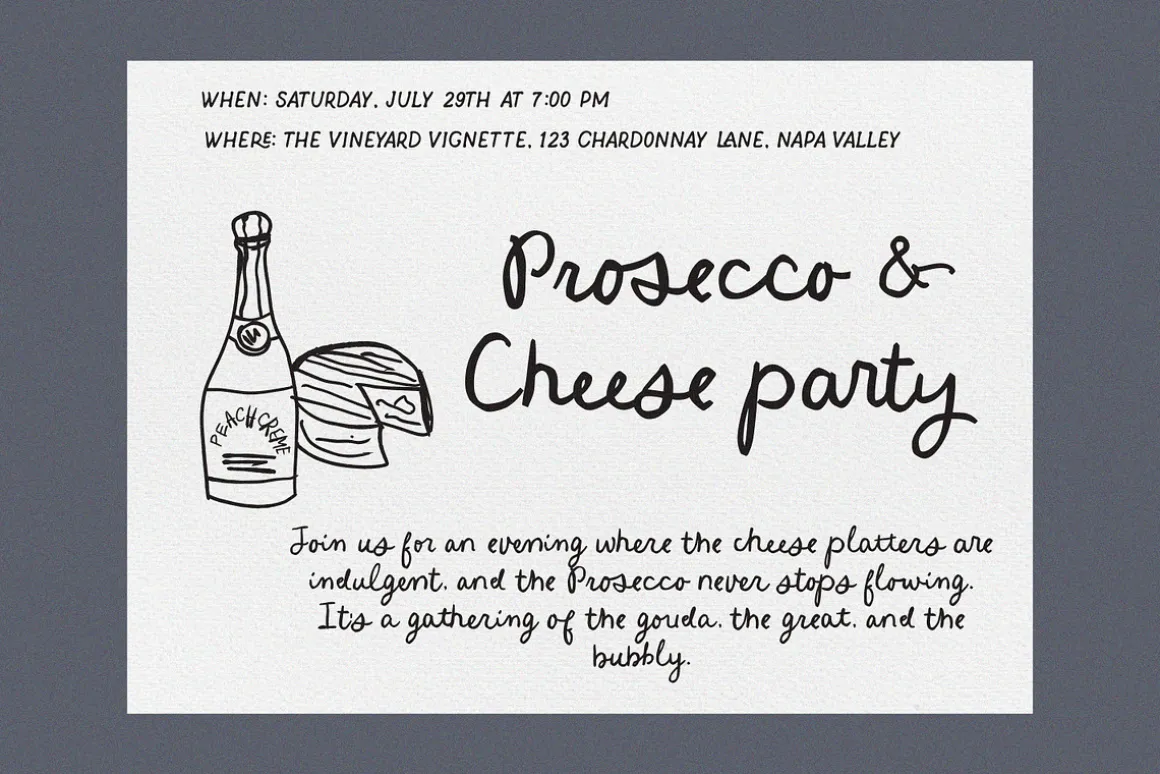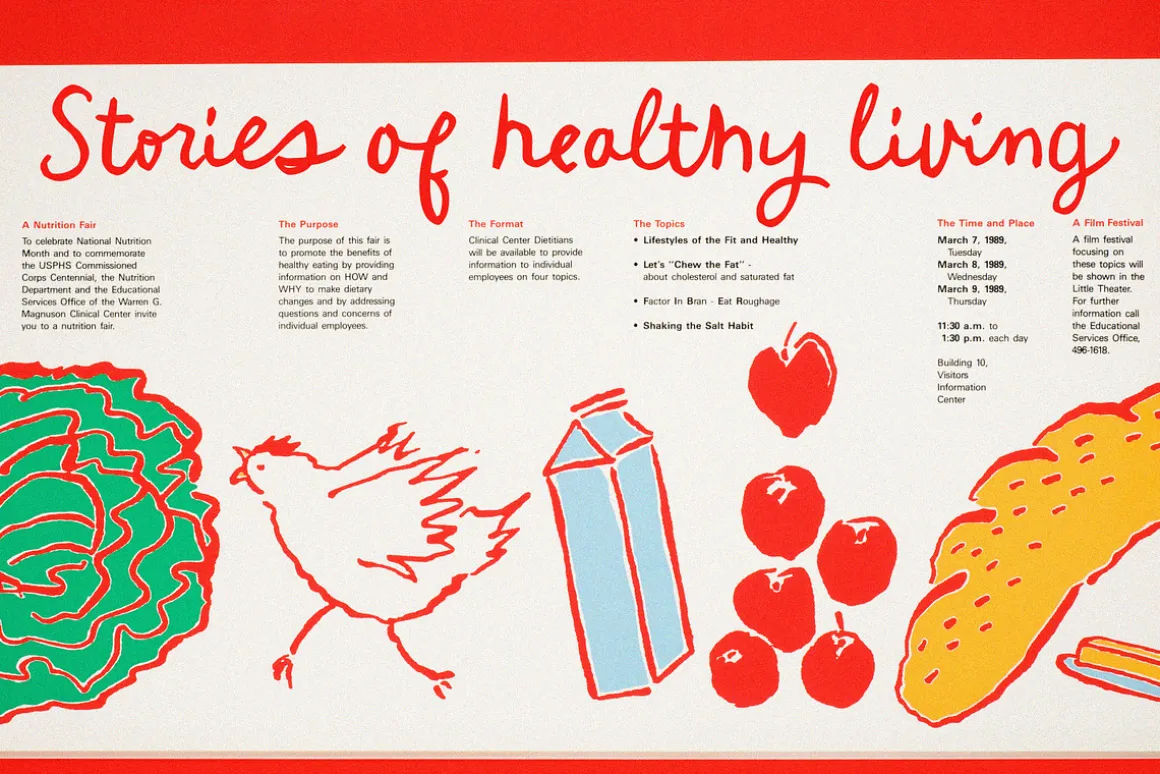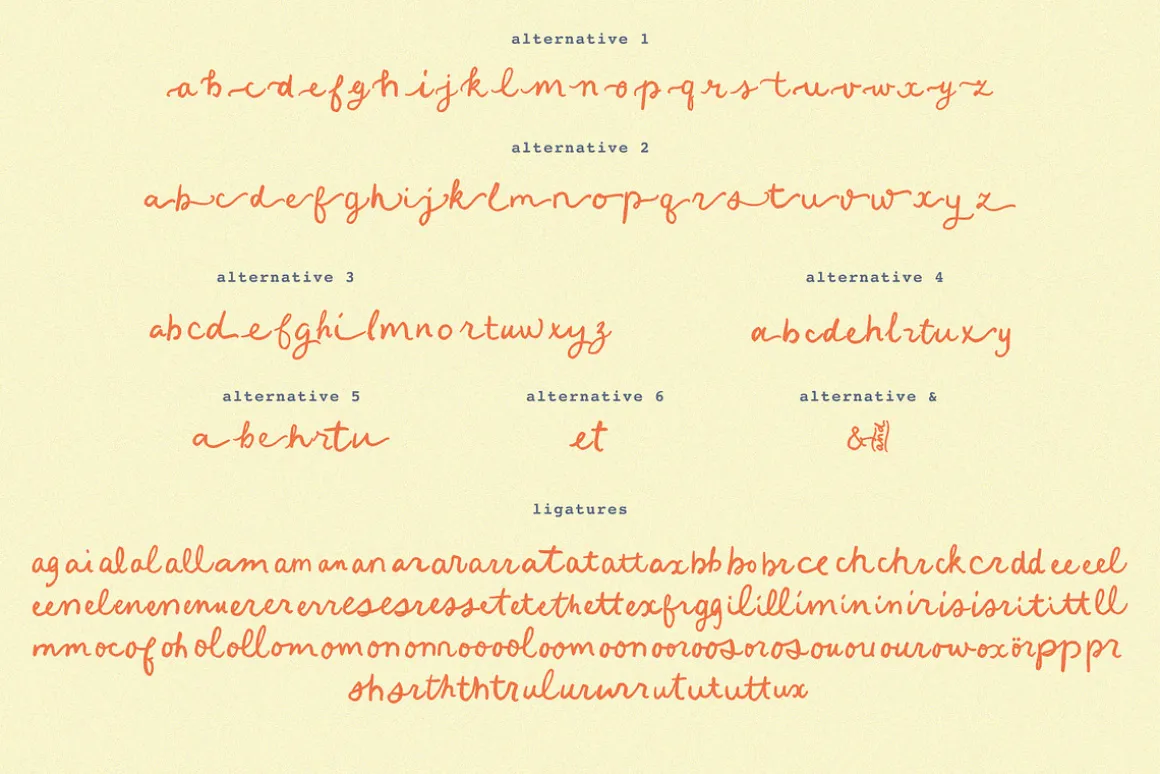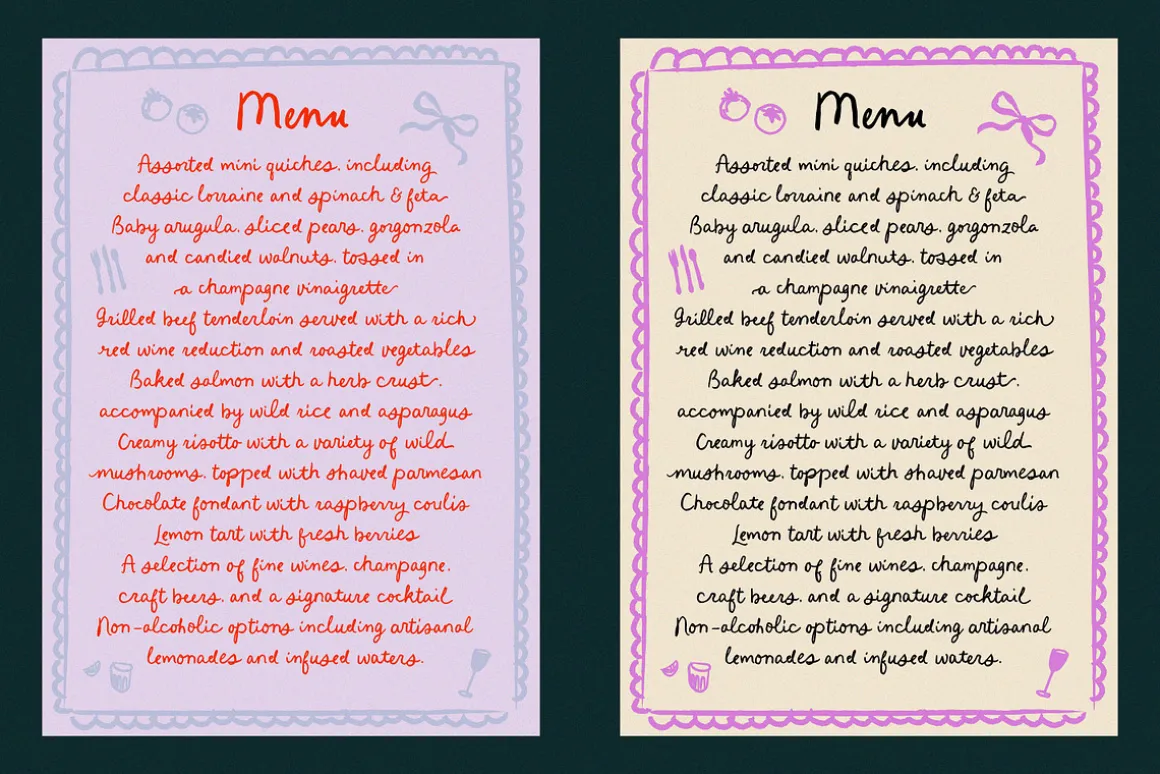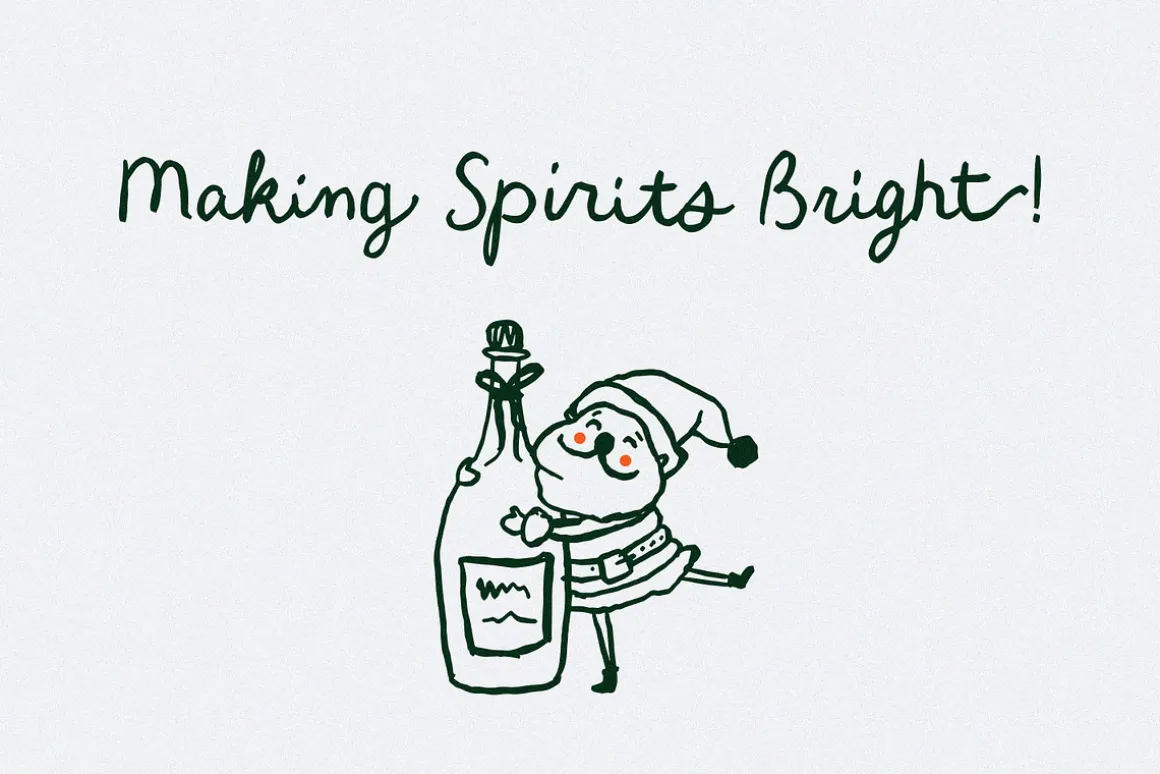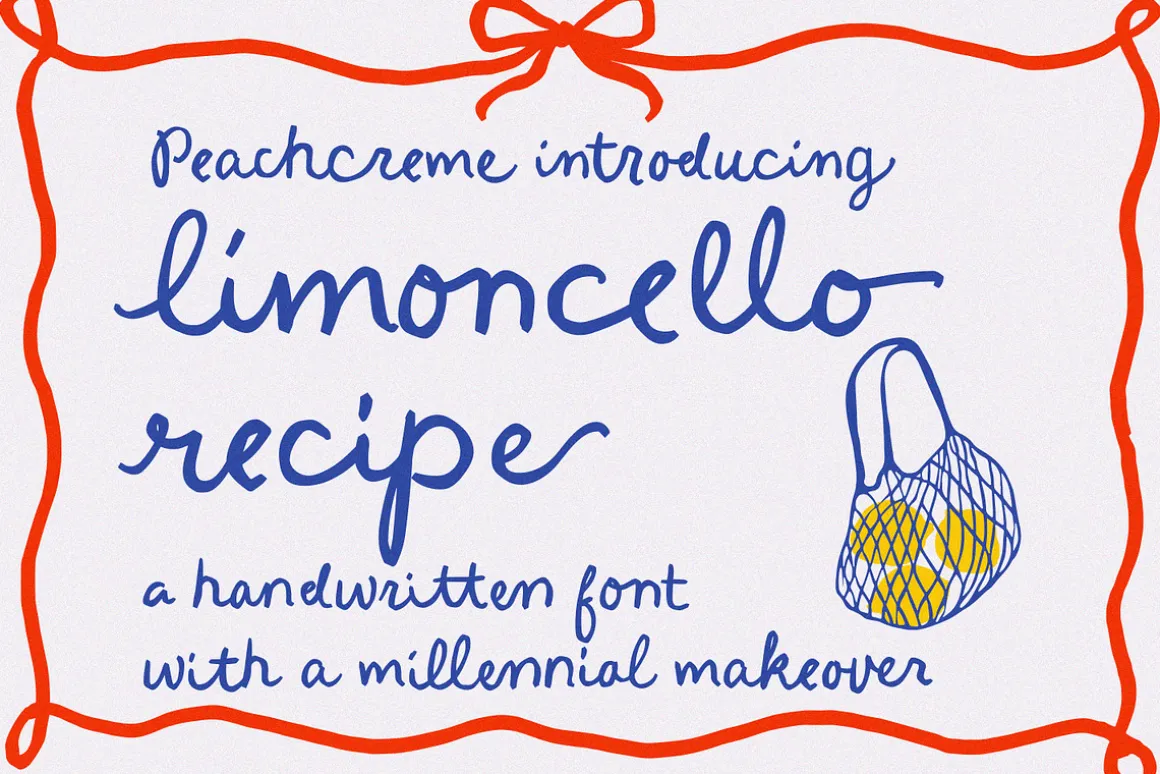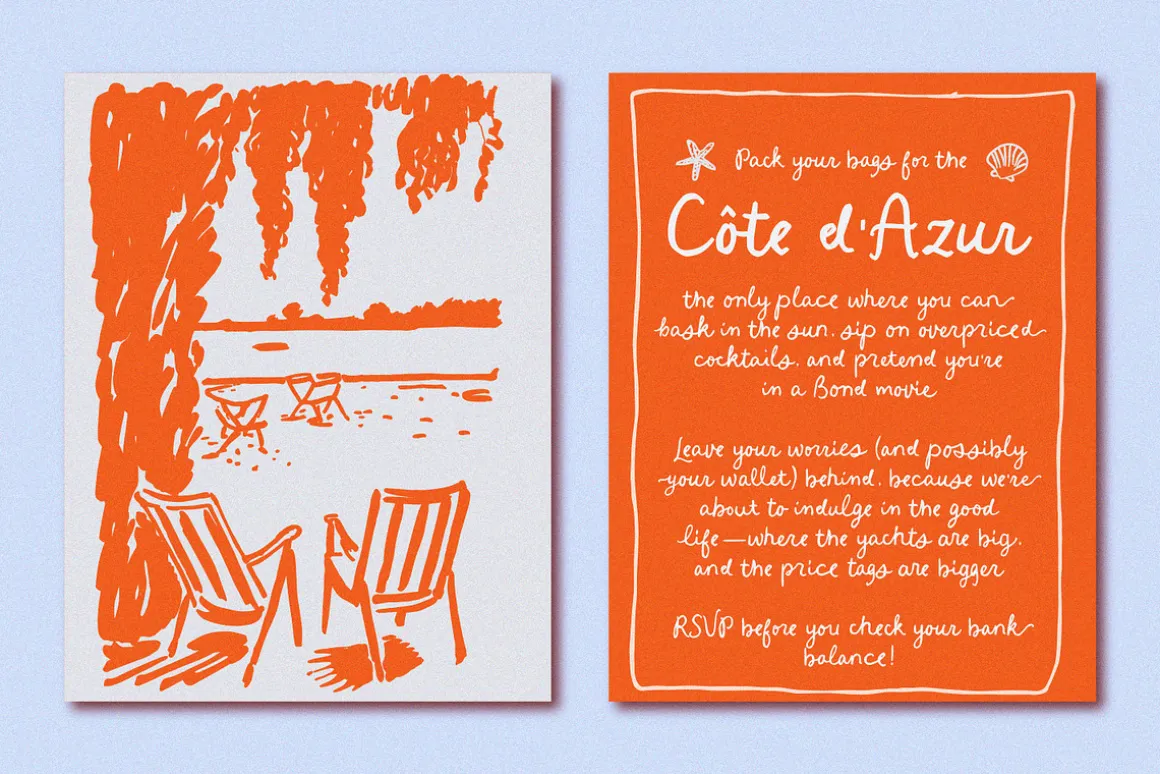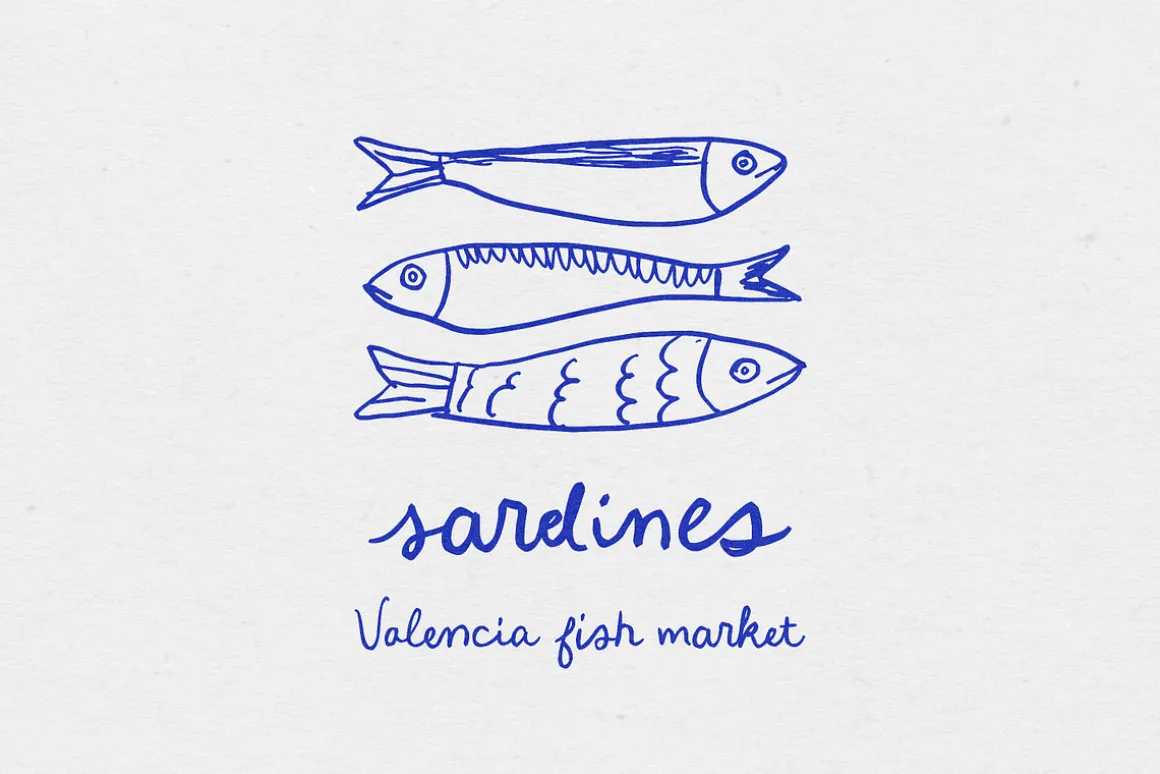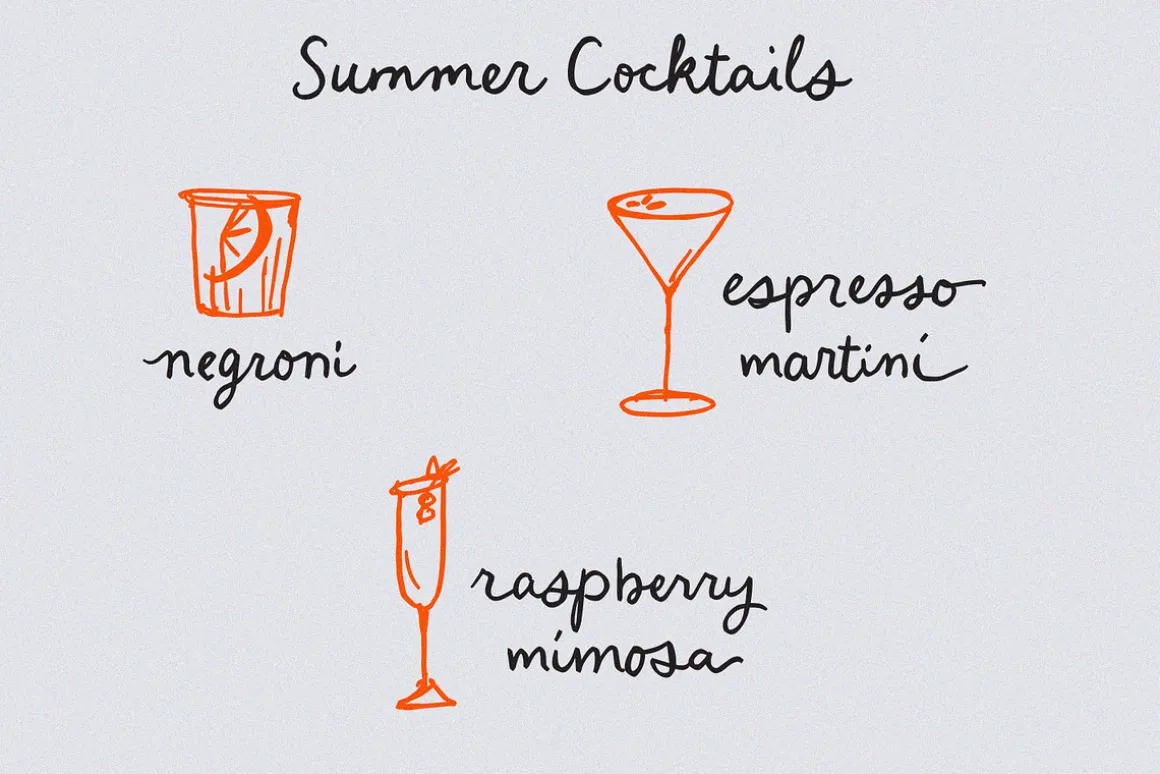
Savor the perfectly imperfect strokes of “Limoncello Recipe,” a handwritten font that embraces the charm of human touch in every line. Just like the handwritten notes of a well-used family cookbook, this font features delightfully uneven lines and a casual, unrefined style that brings an approachable, personal feel to any project.
With 84 standard ligatures, “Limoncello Recipe” reflects the natural variations of handwriting, creating connections that are as authentic as they are unique. These connections celebrate the beauty of imperfection, making your text resonate with the warmth and originality of a handwritten letter.
The font’s assortment of beginning and ending swashes provides a variety of expressive flourishes, giving your words a laid-back elegance. These alternates allow for a playful freedom in your designs, echoing the spontaneous and joyful scribbles found in the margins of a secret family recipe.
Ideal for designs that call for a touch of rustic charm and a dash of whimsy, “Limoncello Recipe” is a reminder that beauty often lies in the flaws. Whether you’re designing a quirky brand identity, a charming event invitation, or packaging for artisanal products, this font proves that sometimes the best approach is a little bit carefree and wonderfully imperfect.